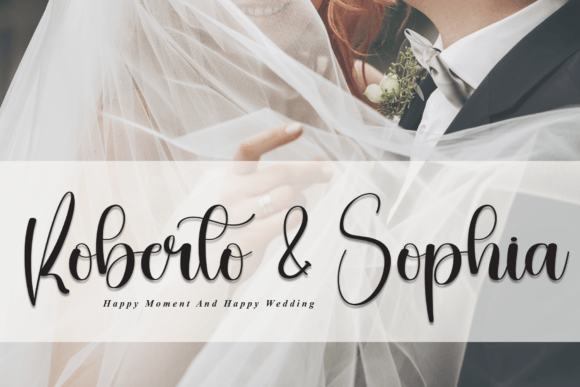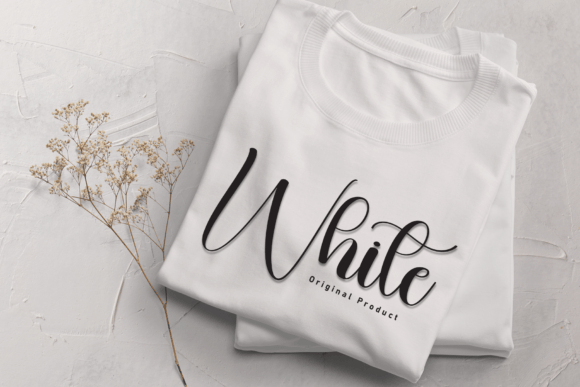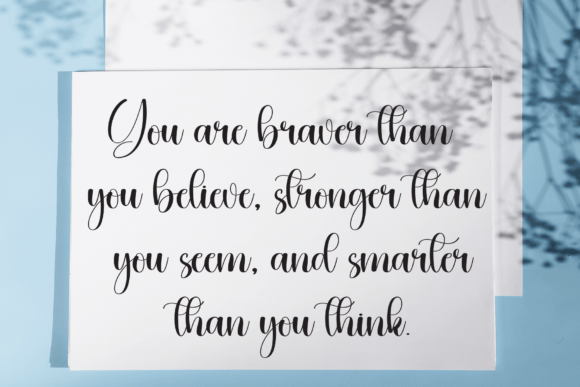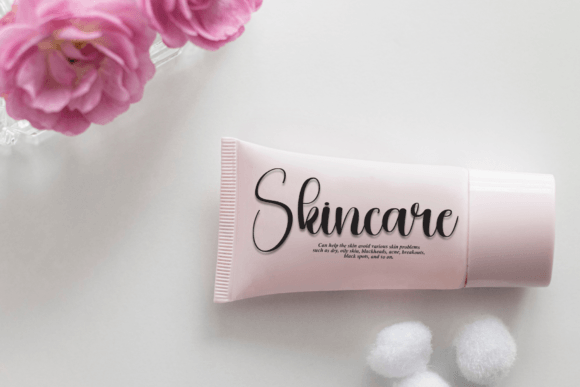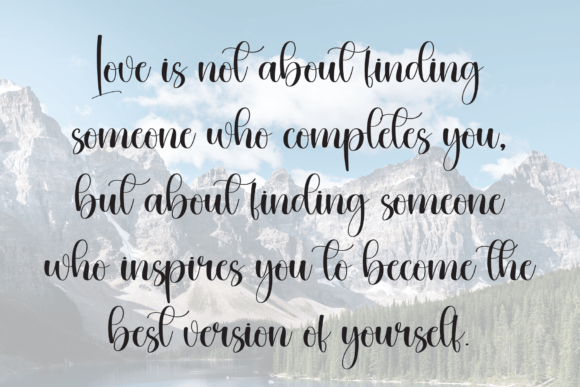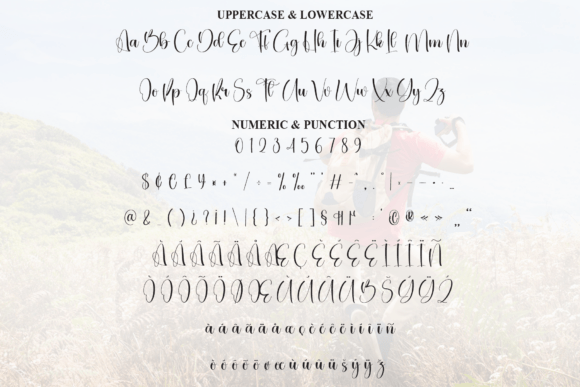
The Elegance of Aventurine Font: A Designer’s Delight
I still remember the time I was working on a wedding invitation project, and my client asked me to create a custom design that exuded elegance and sophistication. I spent hours browsing through font libraries, but nothing seemed to fit the bill. That’s when I stumbled upon Aventurine Font, and it was love at first sight! 💕 The smooth curves and flowing letters of this stylish script font instantly captured the essence of what I was looking for.
An Honest Review of Aventurine Font
- ✅ Elegant and sophisticated design, perfect for high-end projects
- ✅ Smooth curves and flowing letters give it a graceful, handwritten feel
- ✅ Perfect for adding a touch of charm to designs like invitations, logos, and greeting cards
- ✅ Highly versatile and can be used for a variety of design projects
While Aventurine Font is an excellent choice for many design projects, there are a few things to keep in mind:
- 🤔 May not be the best choice for body text or long-form content, as it can be a bit ornate
- ⚠️ Some users may find the font a bit too delicate or fragile for certain design applications
- Experiment with OpenType features, such as ligatures and stylistic alternates, to add more flair to your design
- Explore the font’s glyphs and OpenType features, such as swashes and ornaments, to add more personality to your design
- Use the font’s stylistic alternates and ligatures to add more visual interest to your document
The Backstory of Aventurine Font
Aventurine Font was designed by a team of typographers who wanted to create a font that captured the essence of elegance and sophistication. Inspired by traditional calligraphy and handwriting, they crafted a font that’s both beautiful and functional. While the exact details of the font’s creation are shrouded in mystery, it’s clear that Aventurine Font was designed with the designer in mind.
Q: What is Aventurine Font?
A: Aventurine Font is a stylish script font with elegant, flowing letters, perfect for adding a touch of sophistication and charm to designs.
Q: What can I use Aventurine Font for?
A: Aventurine Font is highly versatile and can be used for a variety of design projects, including invitations, logos, greeting cards, and more.
Q: Is Aventurine Font easy to read?
A: Aventurine Font is a script font, and while it’s beautiful, it may not be the best choice for body text or long-form content. However, it’s perfect for headlines, titles, and short paragraphs.